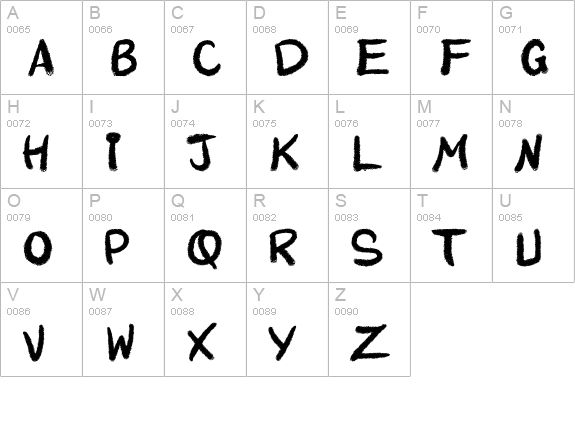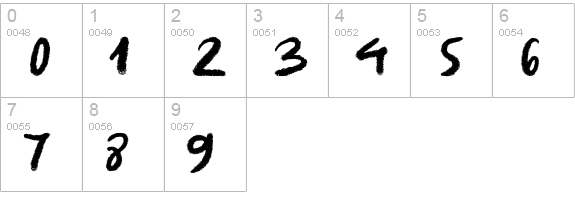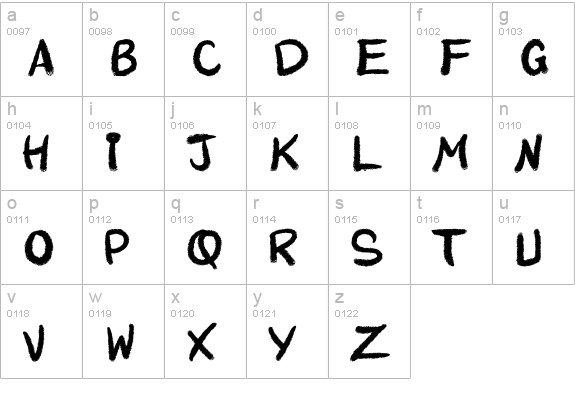
Rough Rough for Manga Font Details
Rough Rough for Manga font is a stunning and unique typeface that perfectly captures the essence of manga comics. With its rough and bold strokes, this font adds a touch of authenticity and dynamism to any design project. Whether you're creating a manga-inspired poster, comic book cover, or even a digital illustration, Rough Rough for Manga font is the perfect choice to bring your artwork to life. This font features a distinct and edgy style that is reminiscent of hand-drawn manga illustrations. Its rough texture and uneven lines give it a raw and gritty look, exuding a sense of energy and excitement. Each letter is meticulously crafted to maintain the spirit of traditional manga art, making it a must-have for manga enthusiasts and designers alike. And the best part? Rough Rough for Manga font is available for free download at FontsMarket.com. Yes, you heard it right - this incredible font can be yours without spending a dime. It's a fantastic opportunity to enhance your creative projects with a high-quality font that won't break the bank. Whether you're a professional designer or a hobbyist, Rough Rough for Manga font offers endless possibilities for unleashing your creativity. Its versatility allows it to be used in a wide range of design applications, including logos, branding materials, posters, merchandise, and more. With this font, you can effortlessly capture the essence of manga and infuse it into your designs, making them truly stand out. So why wait? Don't miss out on this amazing opportunity to download Rough Rough for Manga font for free at FontsMarket.com. Take your design projects to new heights with this exceptional typeface and let your creativity shine through.